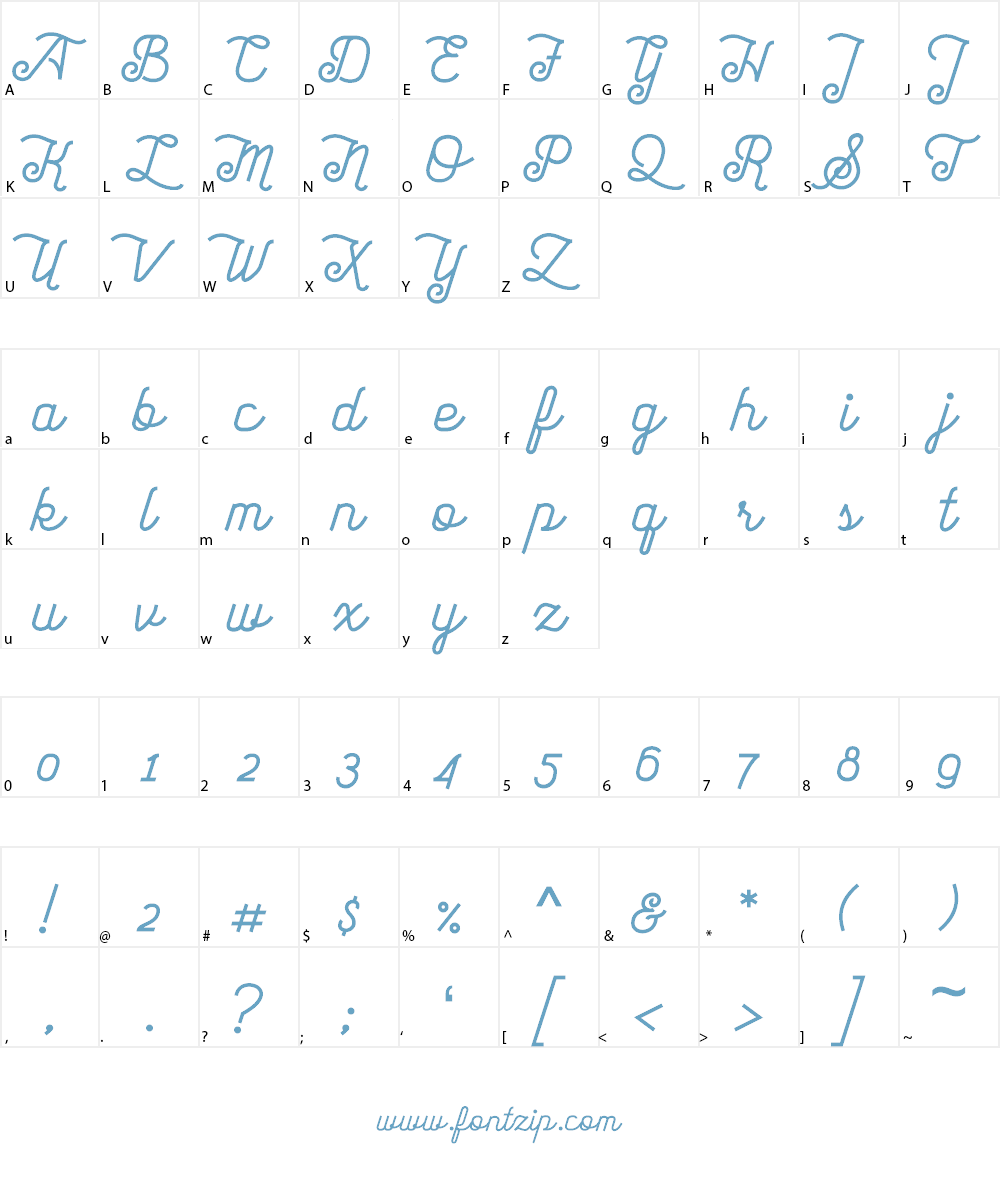
acroscript was created for the logo type of acropoliz fashion store. and now i have made the typeface to be a font that everyone can use it for any purpose of use